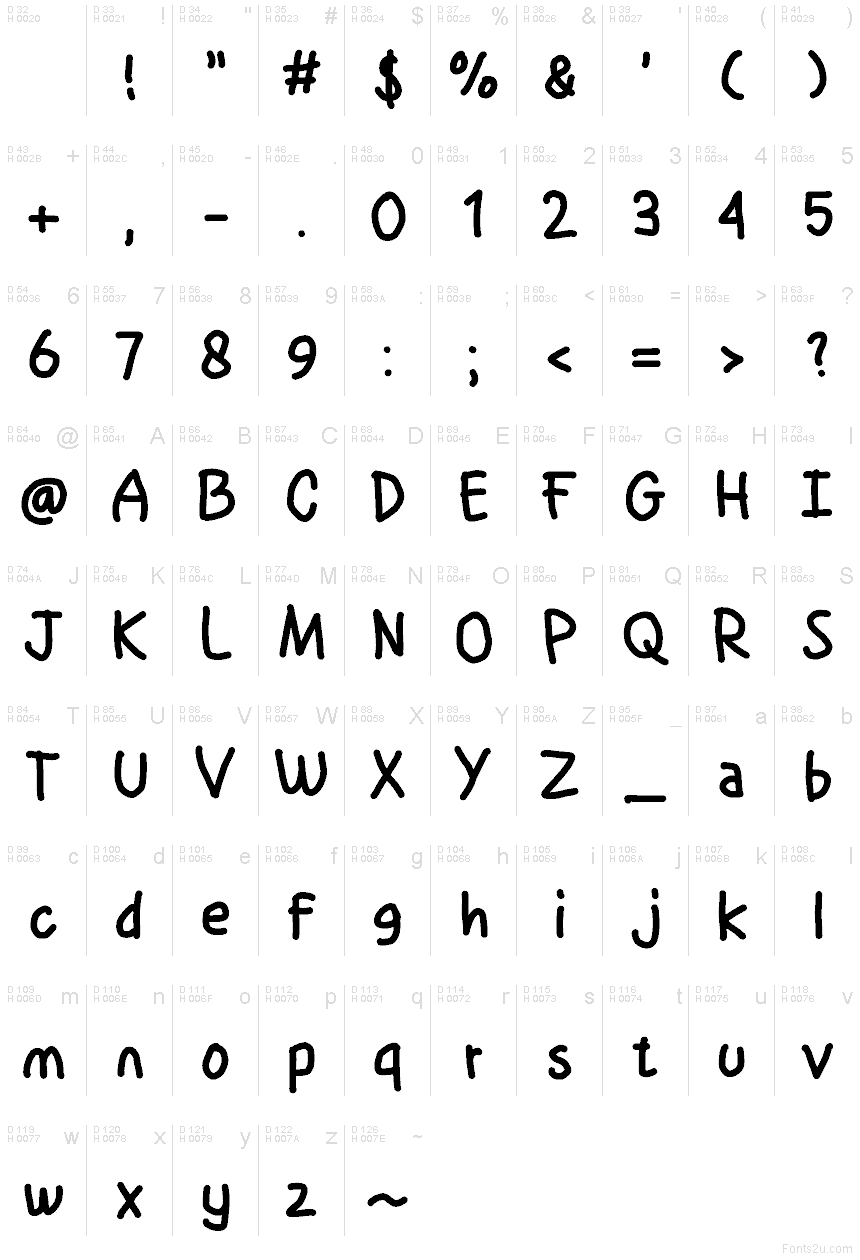
Bouboui Regular
Bouboui font by Dhabee Studio is a free handwritten typeface with the bounce and thickness of a chunky marker on smooth paper. Its rounded forms, even rhythm, and slightly wobbly strokes feel playful and human, without slipping into messiness. Letters sit close and cozy, creating a friendly texture that reads clearly at both small and large sizes.
Using Bouboui, this free font shines on children’s book covers, classroom posters, craft packaging, social media graphics, comics, and casual branding. The soft, inky curves instantly add warmth and approachability, especially for kid-focused or DIY projects. Pair Bouboui with a clean geometric sans for body copy to keep layouts readable while letting the handwritten title carry the personality.